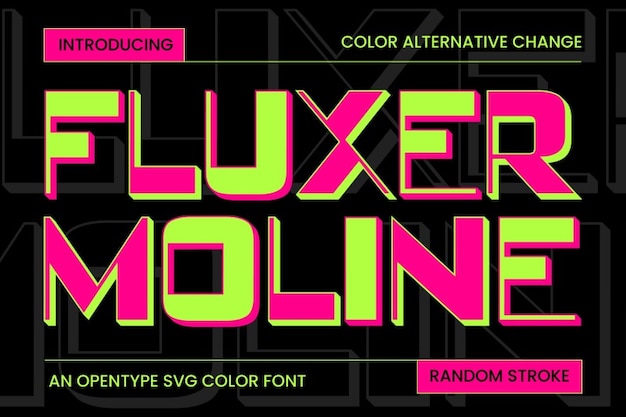
Fluxer Moline Font
Fluxer Moline is a funky display font with bright gradients and hand-drawn outlines. Its bold strokes and layered energy are perfect for expressive branding, creative layouts, or anything with playful movement.